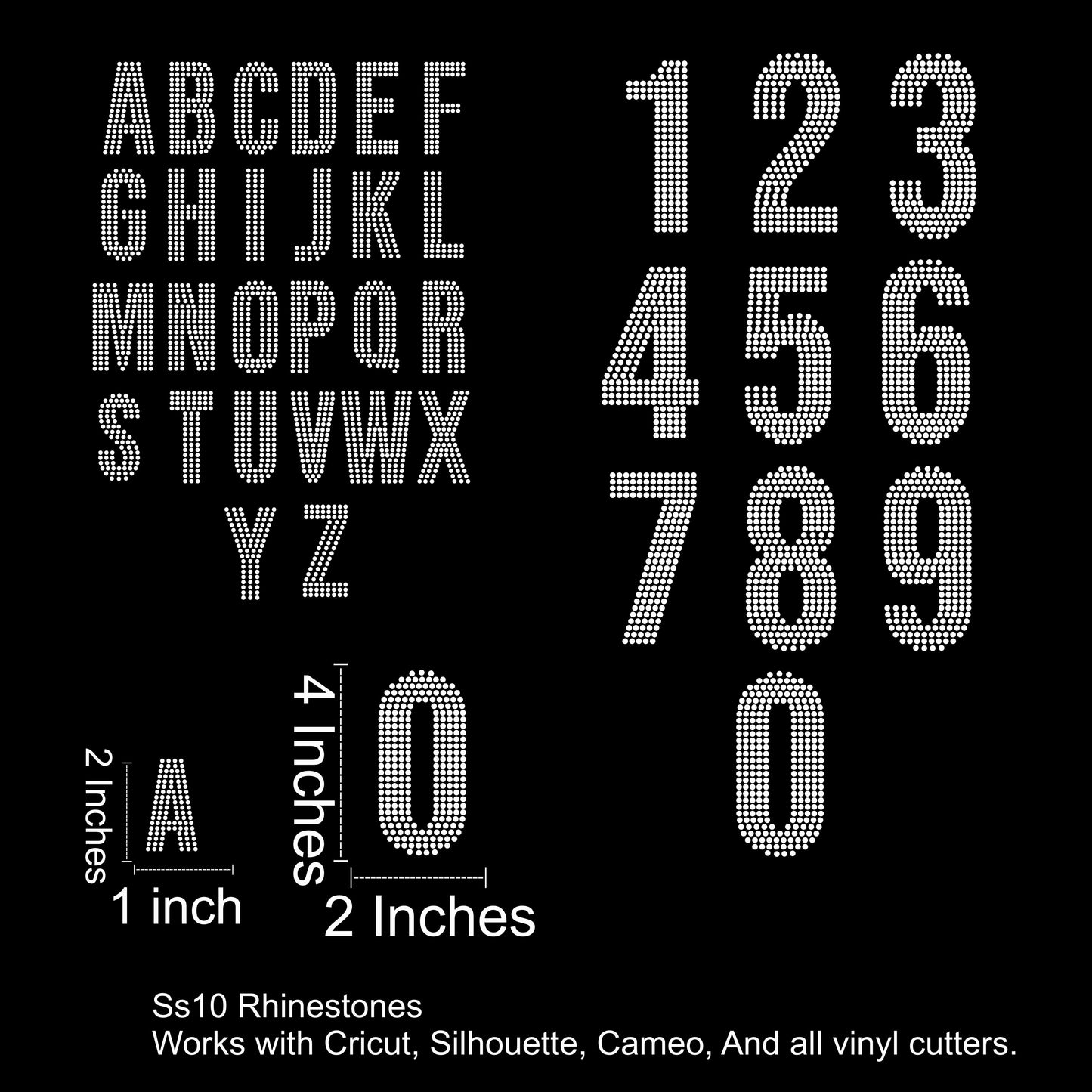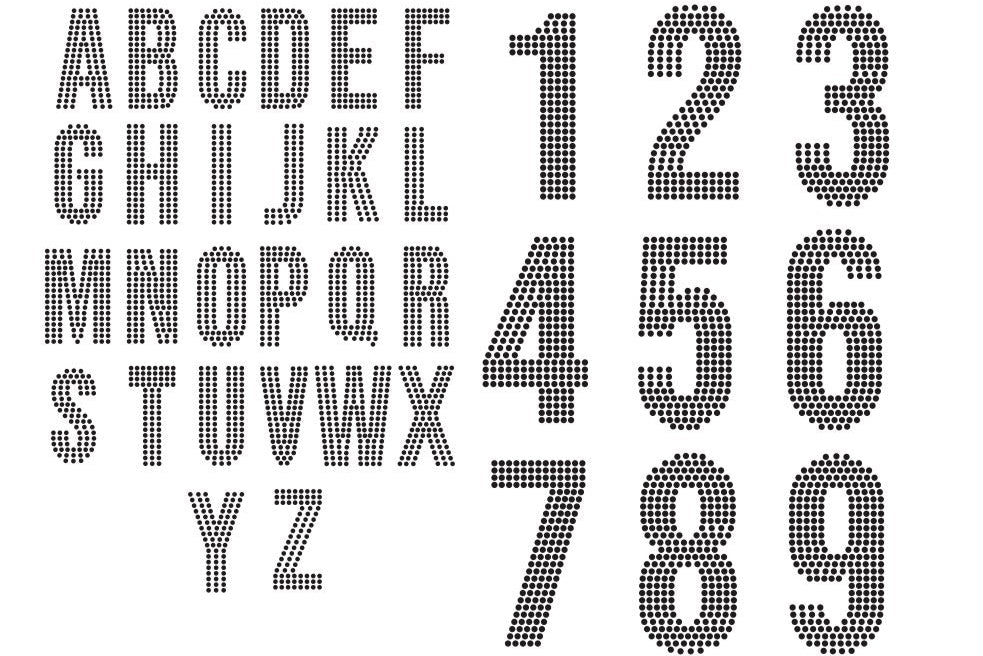
Tower Type Font Rhinestone SVG File A-Z & 0-9
Tower Type – Rhinestone Font SVG (SS10 Size Compatible)
Make a bold statement with Tower Type, a tall, all-caps rhinestone font designed for SS10 stones. With perfectly spaced lettering and crisp edges, this font is ideal for standout designs, brand drops, and bold crafts.
• Capital letters A–Z (approx. 2.5 inches tall)
• Numbers 0–9 (approx. 4 inches tall)
• Straight, clean layout – easy to cut and press